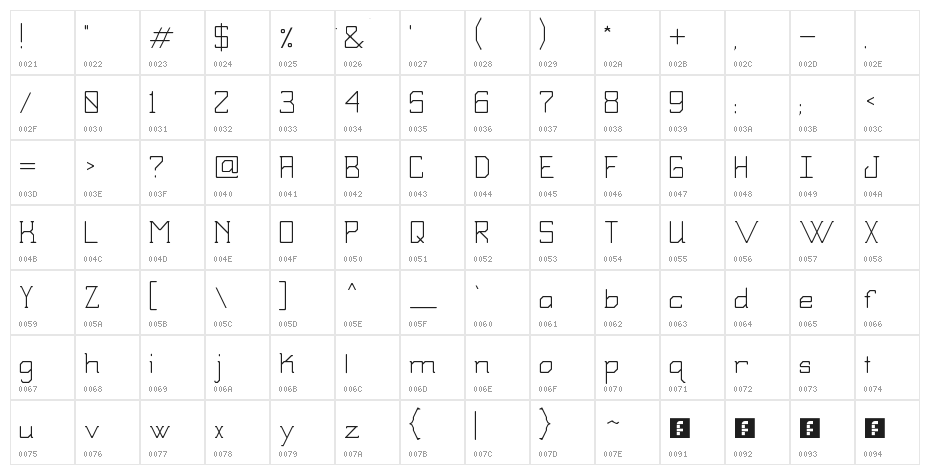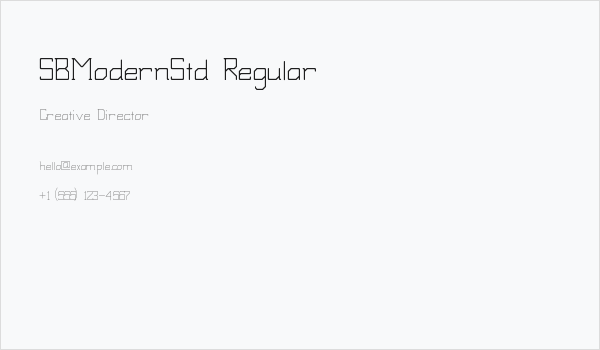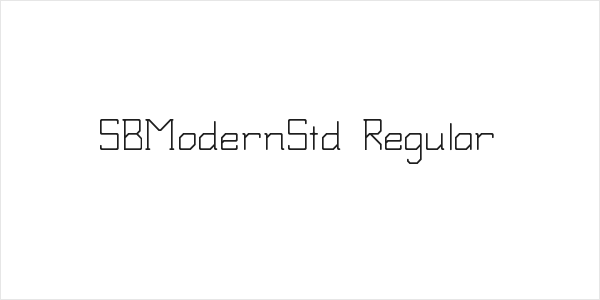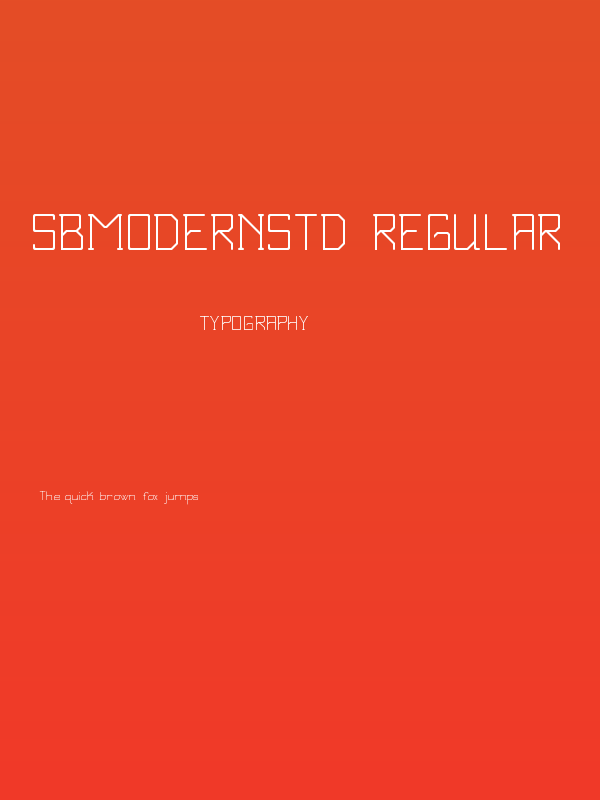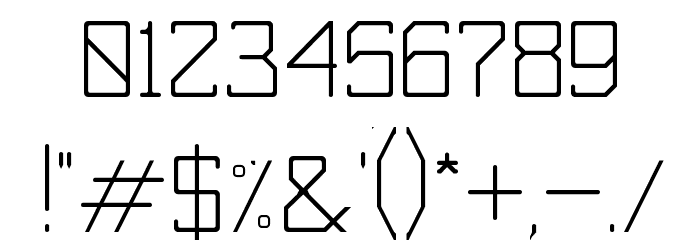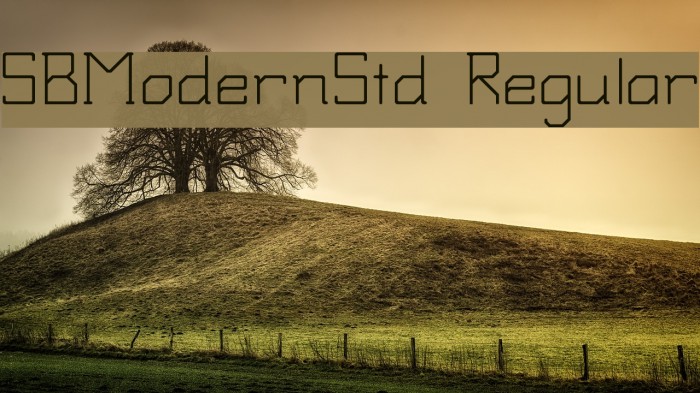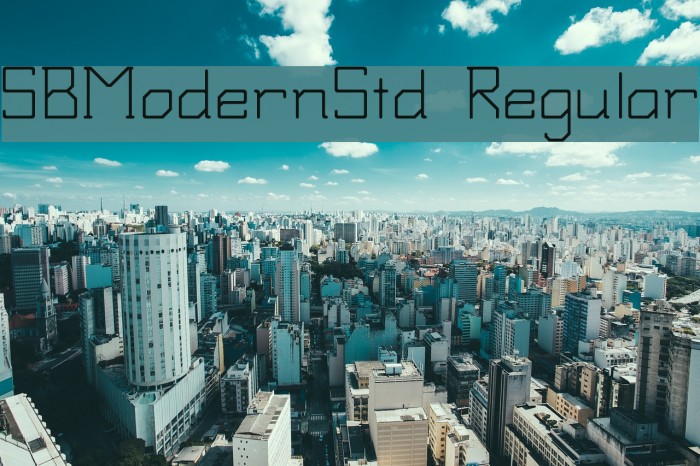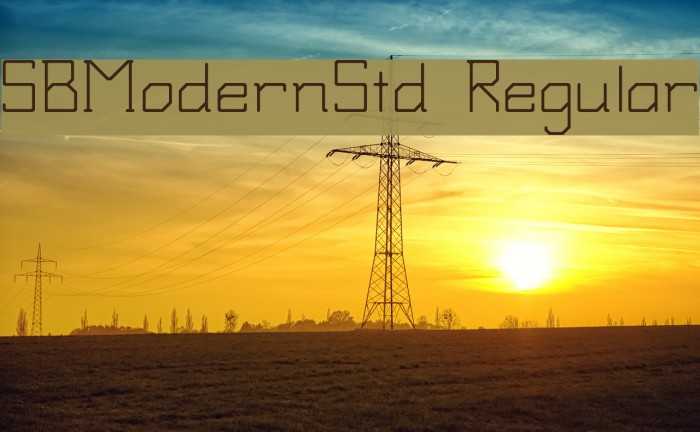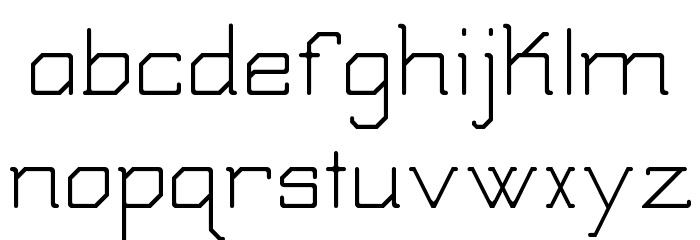
SBModernStd Regular Font
SBModernStd Regular Description
This font features a geometric and modern design with a monospaced structure. The characters are composed of straight lines and sharp angles, giving it a technical and futuristic appearance. The uppercase and lowercase letters maintain a consistent height, contributing to its uniform look. The numerals and special characters follow the same design principles, ensuring a cohesive style throughout. The font's simplicity and clarity make it suitable for digital displays and technical documents.
| Use Case | Digital displays, Technical documents, Coding |
| Proposed Projects | Ideal for coding environments, technical documentation, digital interfaces, and modern branding projects. |